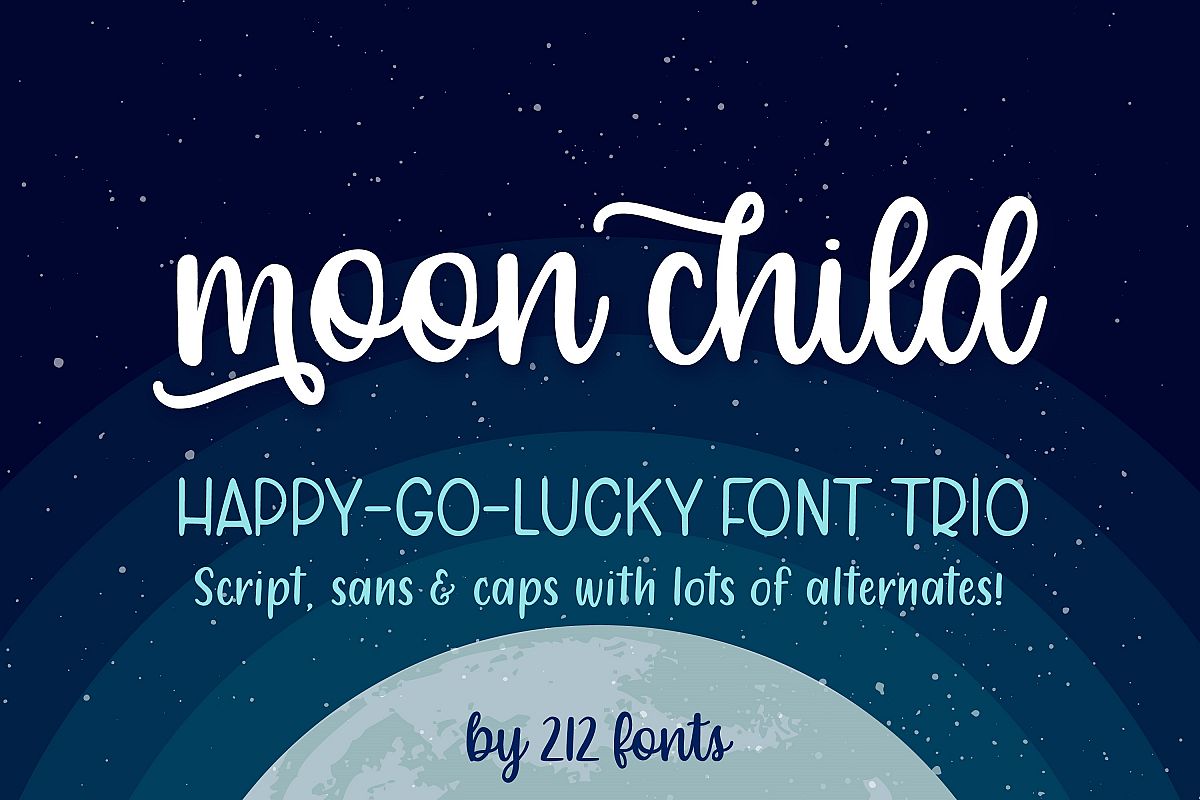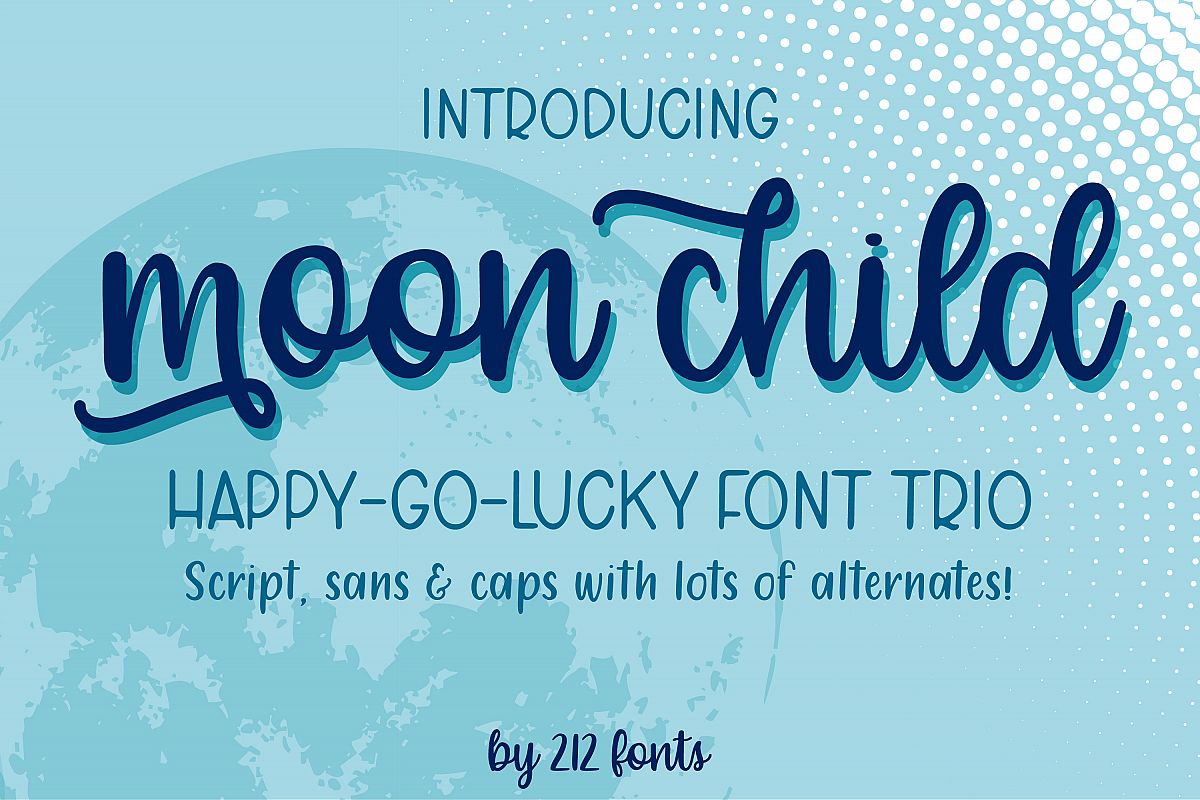
Moon Child Font Trio
Moon Child is a joyful, handwritten font that includes a script, sans, caps version that work great together! The script font includes many standard ligatures, alternates and swashes to create a simple or fancy style to your text.
Perfect for Wedding invitations, Branding, Logos, Greeting Cards and Quotes.